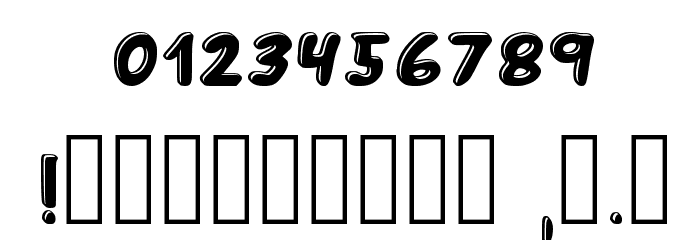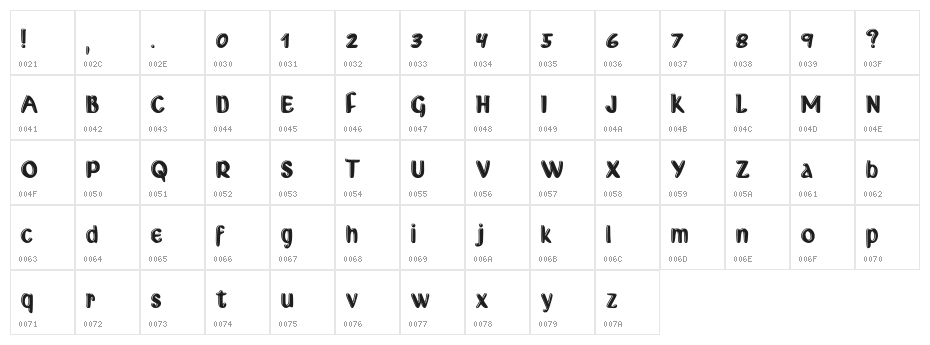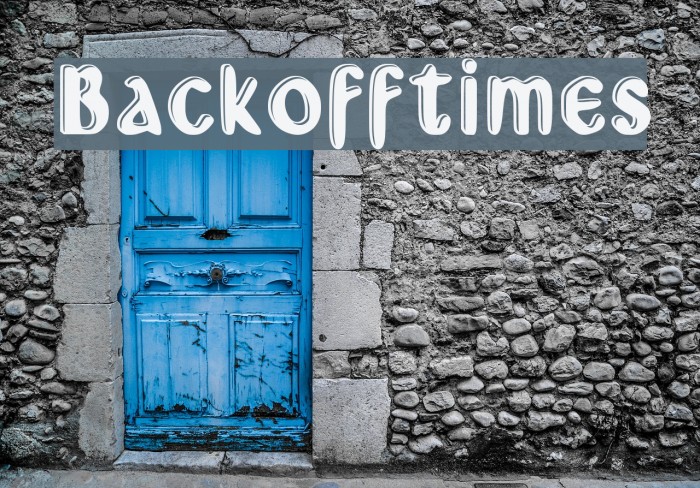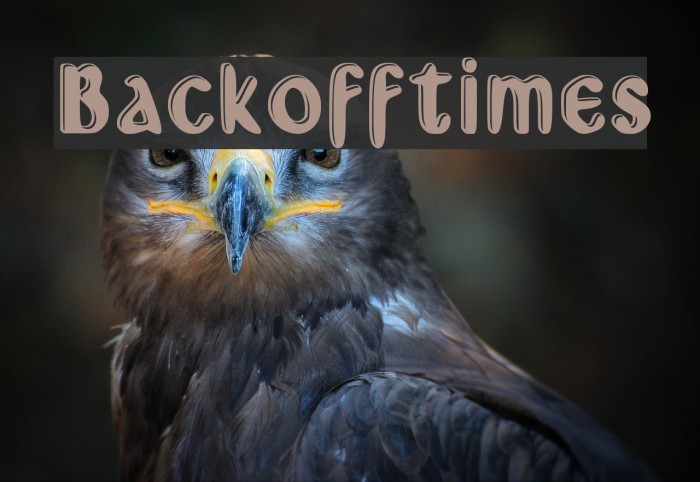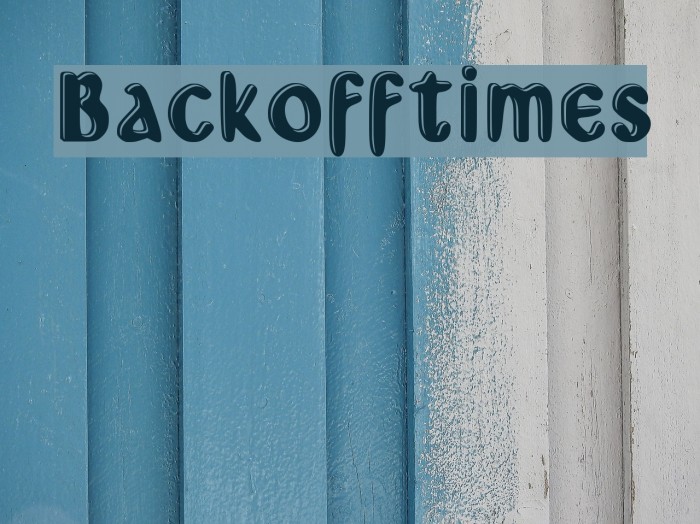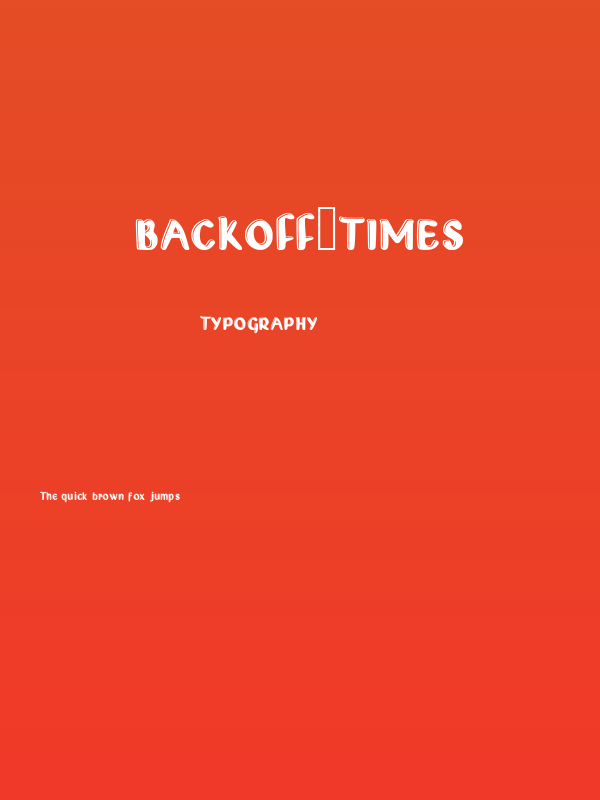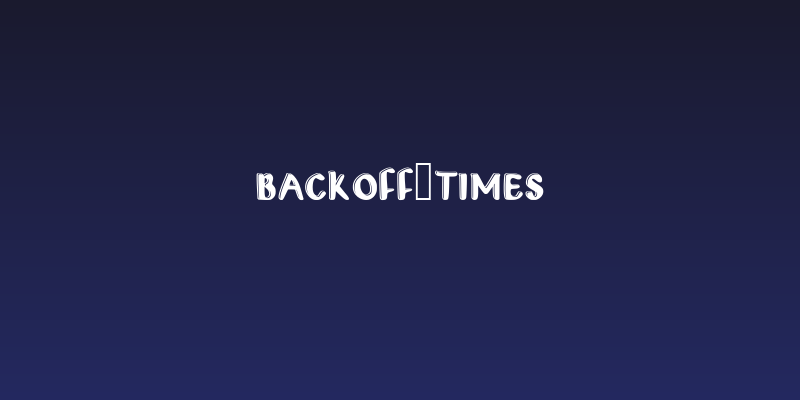
Backoff_times Font
Backoff_times Description
This font features a bold and playful style with a distinct shadow effect that gives each character a three-dimensional appearance. The letters are rounded and slightly condensed, creating a friendly and approachable look. The uppercase and lowercase letters maintain a consistent style, with the lowercase being slightly smaller in size. Numbers and special characters are designed to match the overall playful theme, making them suitable for creative projects. The font's unique shadowing adds depth and interest, making it stand out in various design applications.
| Proposed Projects | Ideal for children's books, playful branding, posters, and creative invitations. |